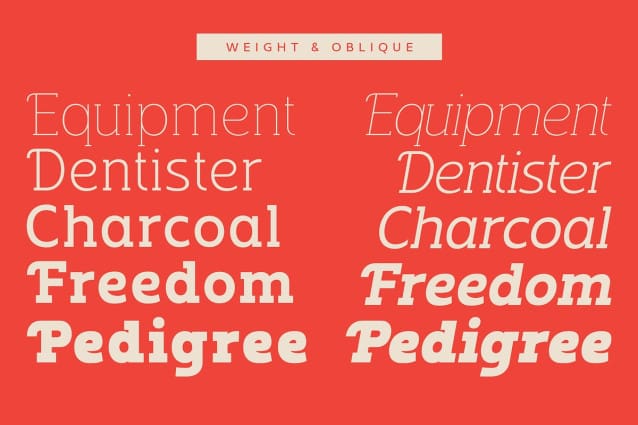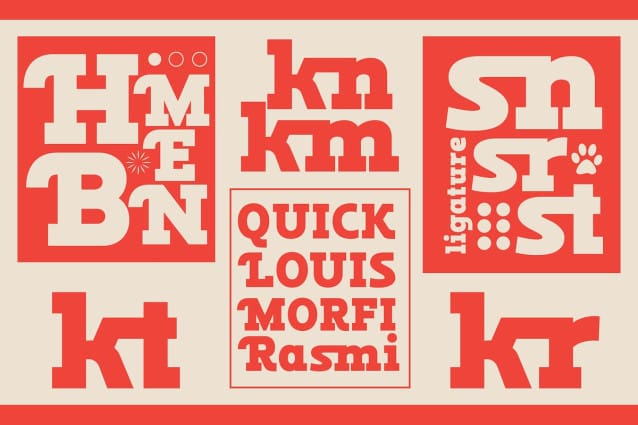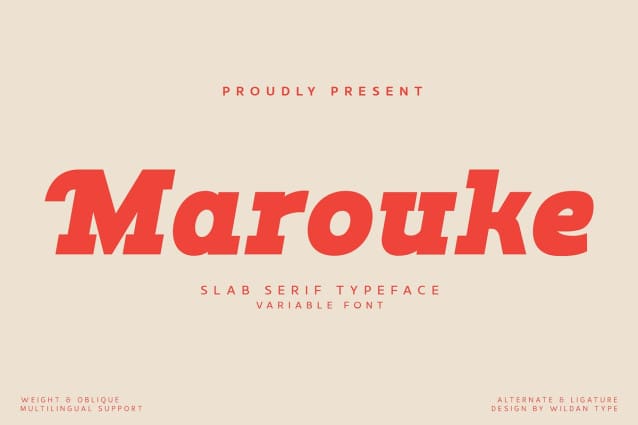
Marouke Font
Marouke font the modern slab serif which inspired from sporty design and vintage style. This is variable font, different styles and weight that you can apply in your design project. This font made with the visuality of strength. Make a great combination of your design